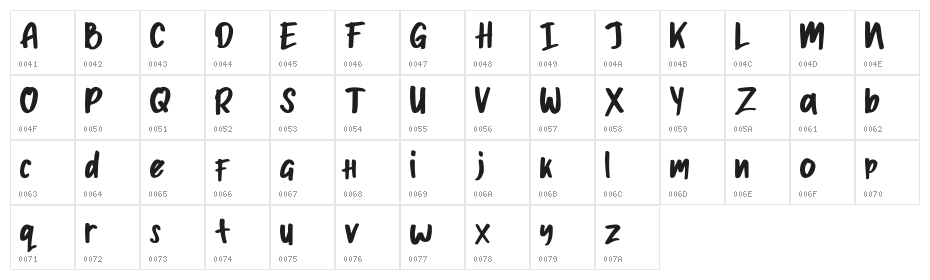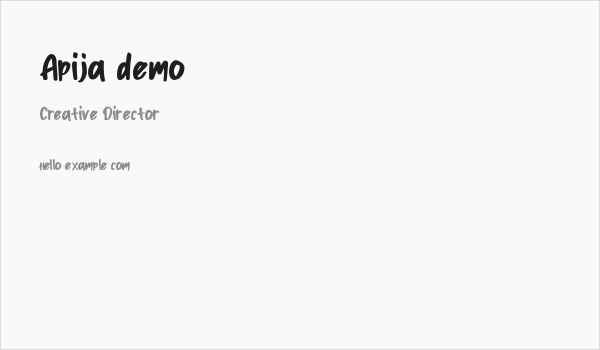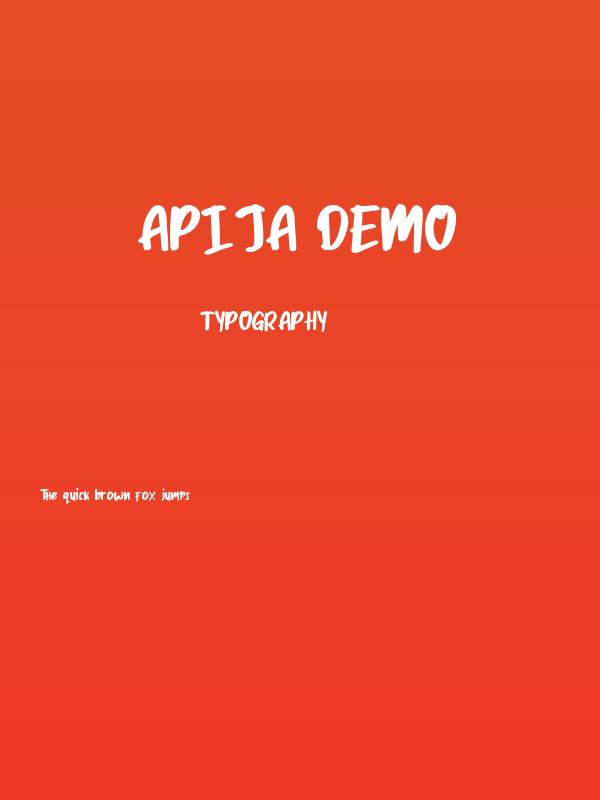
Apija demo Font
Apija demo Description
This font features a bold, handwritten style with a playful and casual appearance. The letters are slightly slanted, giving it a dynamic and energetic feel. The strokes are thick and consistent, providing a strong presence on the page. The characters are well-spaced, ensuring readability while maintaining a cohesive look. This font is versatile, suitable for various creative projects that require a personal touch. Its informal style makes it ideal for designs that aim to convey warmth and approachability.
| Proposed Projects | Ideal for greeting cards, invitations, posters, and social media graphics. |